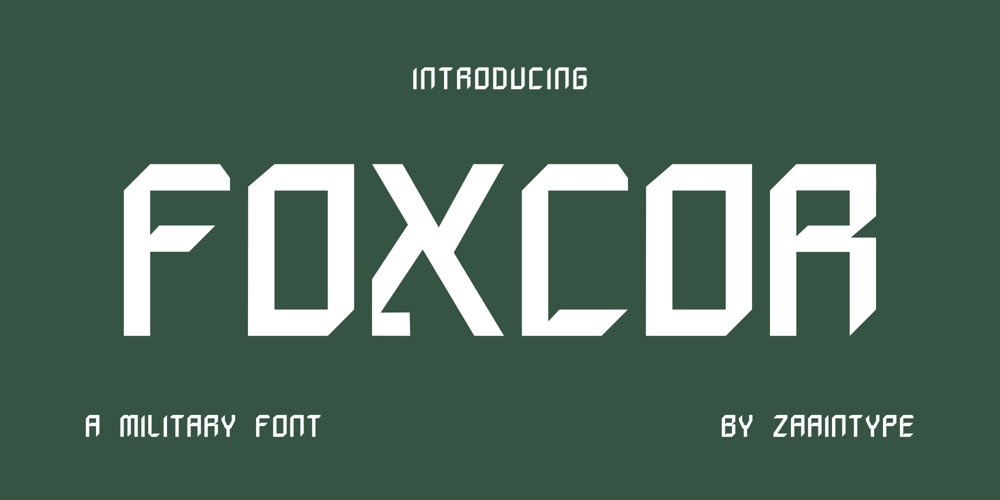
Foxcor Font Family was designed by Ju Naen and published by Zaain Type. Foxcor contains 1 styles and family package options. Foxcor is a bold, military-inspired sans serif font featuring strong lines and distinctive letterforms. Exuding discipline and strength, Foxcor is perfect for projects that demand a commanding and authoritative presence, such as logos, posters, branding, and military or industrial-themed designs. Its sharp, structured design ensures readability while delivering a powerful, rugged look.With its bold character, Foxcor is the ideal choice for military, industrial, or action-oriented projects, providing a tough yet refined visual identity for your designs.